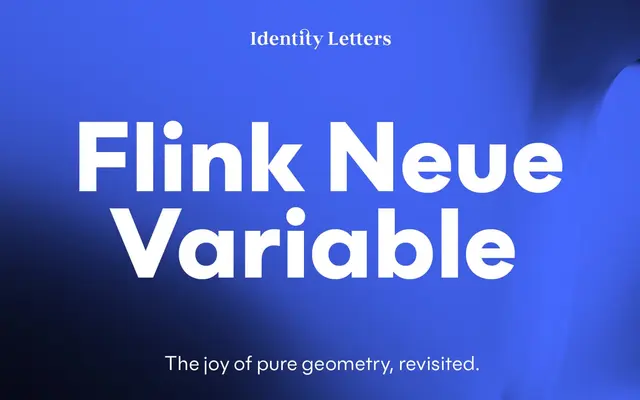
Flink Neue Variable
A geometric sans offered as a single variable font, spanning nine weights from Thin to Black with italics and a notably large x-height relative to its historical references.
Drawing on the canon of 1920s geometric sans-serifs, particularly Futura, Erbar and Kabel, and the later influence of Avant Garde Gothic, Flink Neue is Identity Letters' contribution to the genre. Its x-height is larger than most classic geometric sans-serifs, and its proportions are harmonised rather than strictly geometric, broadening its usefulness from body copy to display sizes. The family is issued as a single variable font file and includes small capitals, oldstyle figures, Bauhaus alternates and an extensive set of OpenType features.
Explicitly inspired by Futura, Erbar, Kabel and Avant Garde Gothic, Flink Neue sits squarely in the geometric sans tradition, characterised by neat, near-circular forms and a clean, focused appearance.